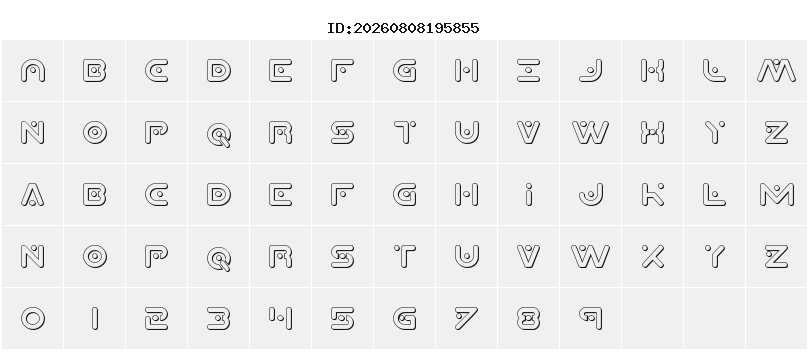
• Font Name: Planet X Compact 3D
About Planet X Compact 3D.ttf
Planet X Compact 3D.ttf is a modern, elegant sans-serif font designed for ultimate readability and visual harmony. Perfect for branding, headlines, web design, and print materials.